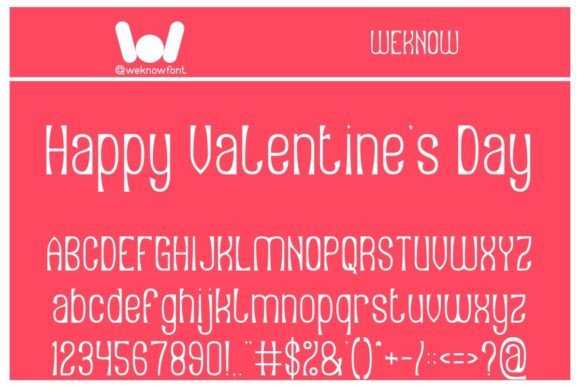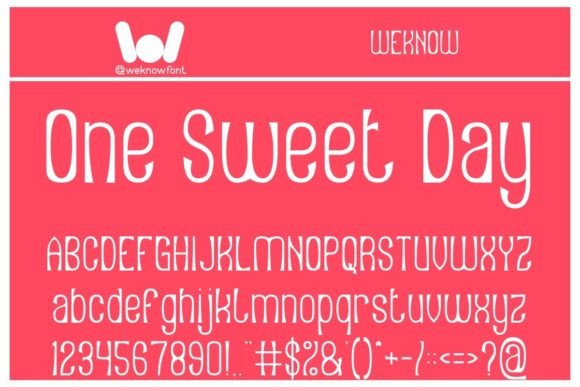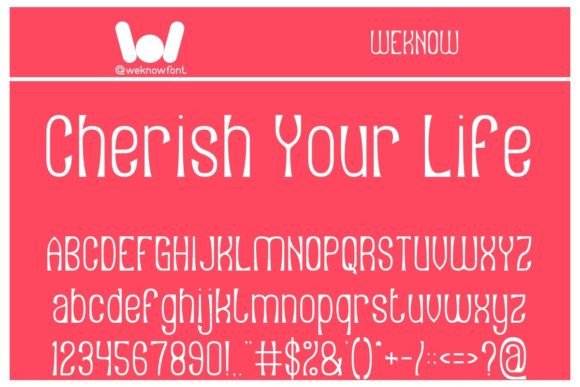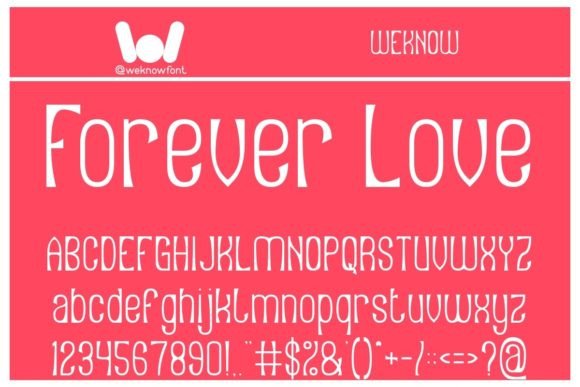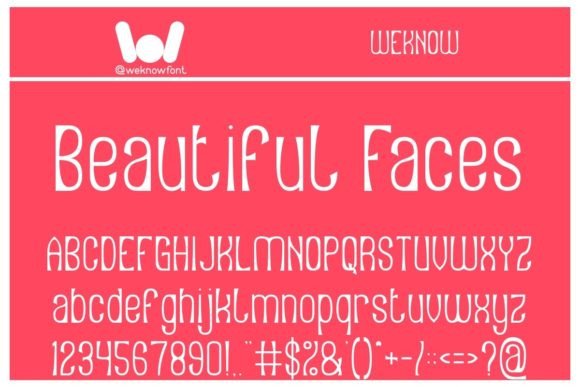
Introducing Beautiful Faces: The Modern Display Font for Stunning Headlines
In the world of typography, a great font can make all the difference in creating visually stunning designs. For designers and crafters looking for a modern and elegant display font, Beautiful Faces is an excellent choice. This clean and minimalistic font is specifically designed for use in headlines and titles, making it perfect for a wide range of design projects.
Clean Lines, Sharp Edges, and a Minimalistic Style
Beautiful Faces features clean lines, sharp edges, and a minimalistic style that exudes elegance and sophistication. The font’s sleek design makes it perfect for creating eye-catching headlines and titles that are sure to grab attention. Whether you’re designing a logo, brochure, or website, Beautiful Faces is an excellent choice for adding a touch of modern style to your project.
Key Features of Beautiful Faces Font
- Modern Display Font: Beautiful Faces is a modern display font designed specifically for use in headlines and titles.
- Clean Lines and Sharp Edges: The font features clean lines and sharp edges, giving it a sleek and sophisticated look.
- Minimalistic Style: The font’s minimalistic style makes it perfect for designers who want to create elegant and understated designs.
- Elegant and Eye-Catching: Beautiful Faces is both elegant and eye-catching, making it perfect for creating stunning headlines and titles.
Why Choose Beautiful Faces Font?
There are many reasons why designers and crafters should choose Beautiful Faces font for their design projects. Here are a few:
- Versatility: Beautiful Faces is a versatile font that can be used in a wide range of design projects, from logos and brochures to websites and social media graphics.
- Easy to Read: The font is easy to read, even at small sizes, making it perfect for use in body text as well as headlines.
- High-Quality Design: Beautiful Faces is a high-quality font designed with precision and attention to detail, ensuring that it looks great in any design project.
- Unique Style: The font’s unique style sets it apart from other display fonts, making it perfect for designers who want to create something truly unique.
How to Use Beautiful Faces Font in Your Design Projects
Using Beautiful Faces font in your design projects is easy. Here are a few tips to get you started:
- Use it for Headlines and Titles: Beautiful Faces is specifically designed for use in headlines and titles, so use it to create eye-catching headings that grab attention.
- Experiment with Different Sizes: The font looks great at a range of sizes, from small to large, so experiment with different sizes to find the one that works best for your design.
- Pair it with Other Fonts: Beautiful Faces pairs well with other fonts, so try pairing it with a sans-serif font for body text to create a stunning contrast.
- Use it for Branding and Identity: The font’s unique style makes it perfect for use in branding and identity design projects, such as logos and letterheads.
In conclusion, Beautiful Faces is a stunning modern display font that is perfect for designers and crafters looking to create eye-catching headlines and titles. With its clean lines, sharp edges, and minimalistic style, this font is both elegant and eye-catching. Whether you’re designing a logo, brochure, or website, Beautiful Faces is an excellent choice for adding a touch of modern style to your project.